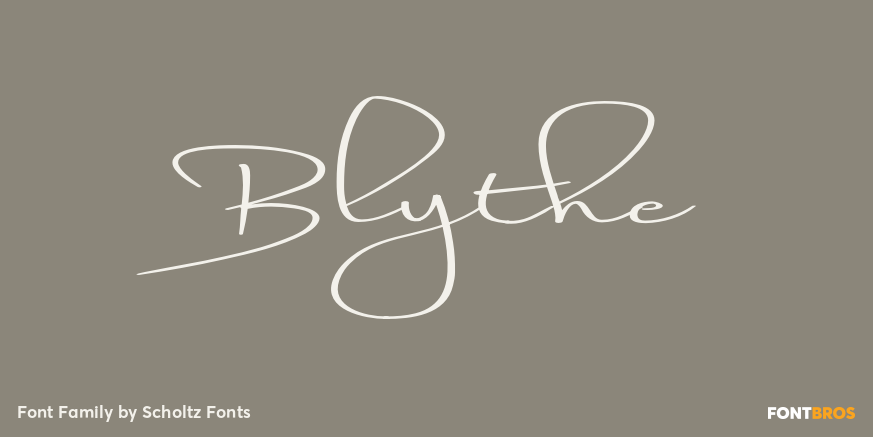
Blythe
Blythe is a stylish and contemporary handwriting font that captures the elegant hand of the 1950s with the immediacy of handwriting fonts such as Affable. There are many handwriting fonts out there, many of which border on being grungy and irregular.…